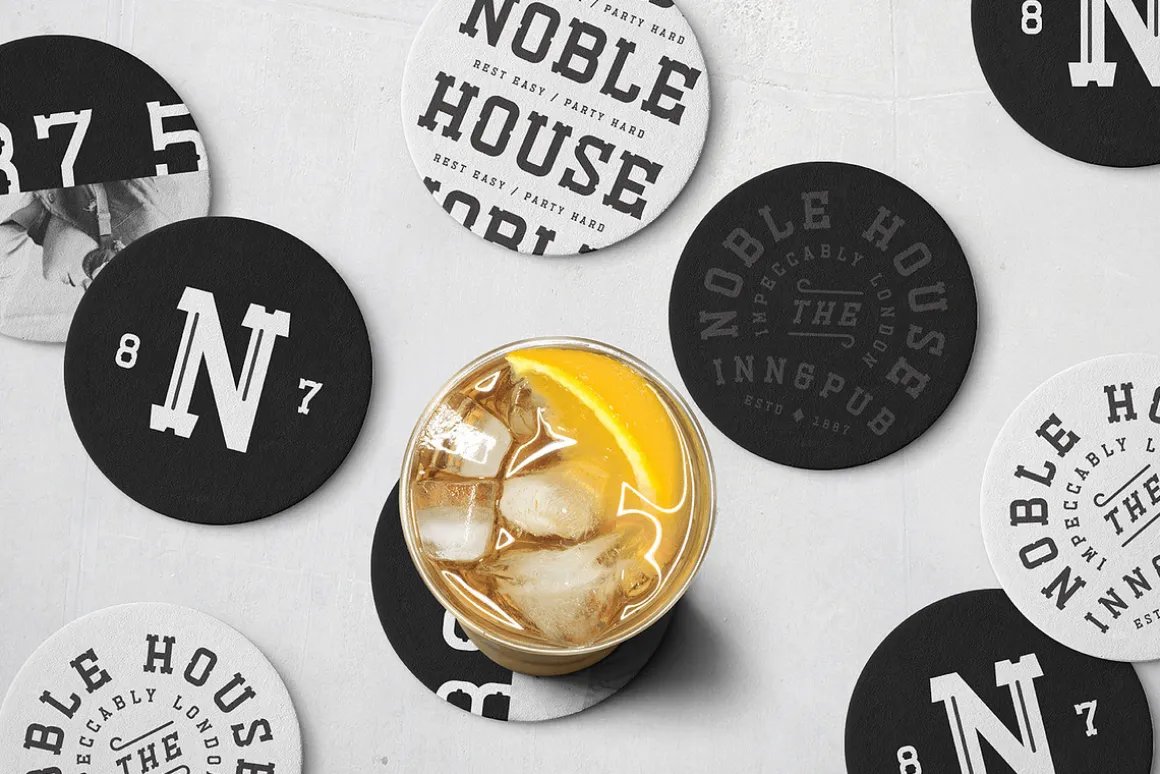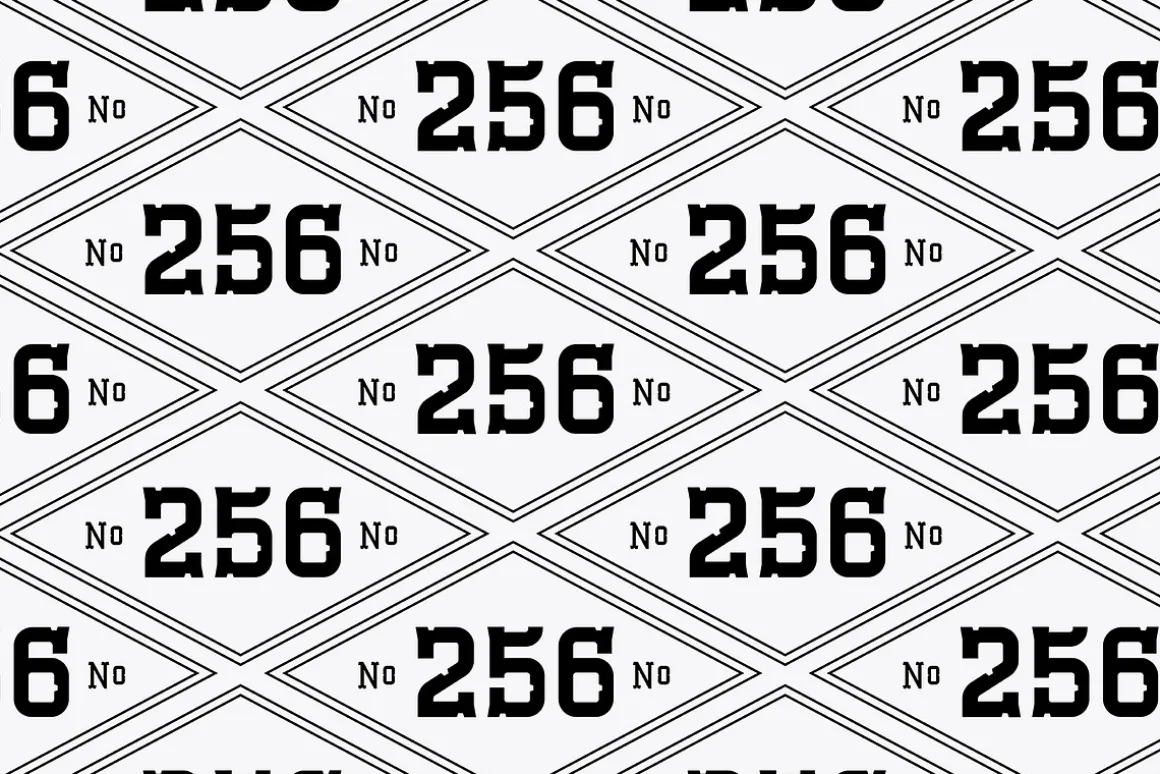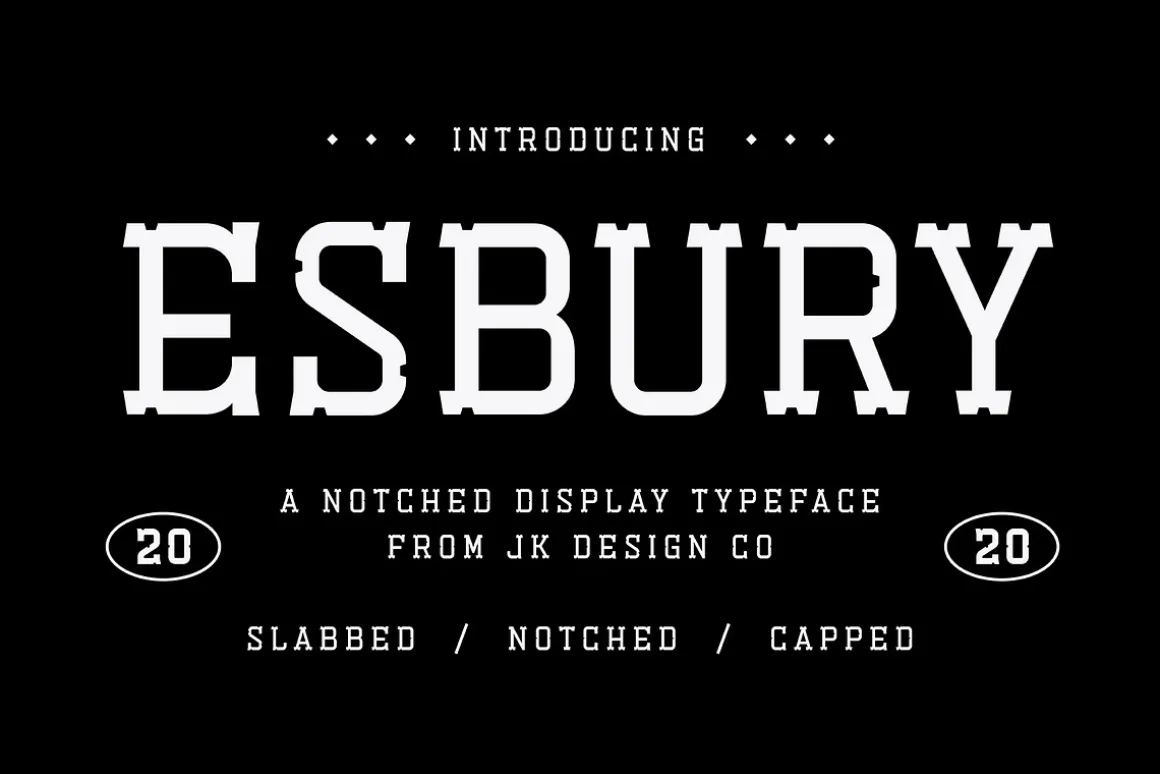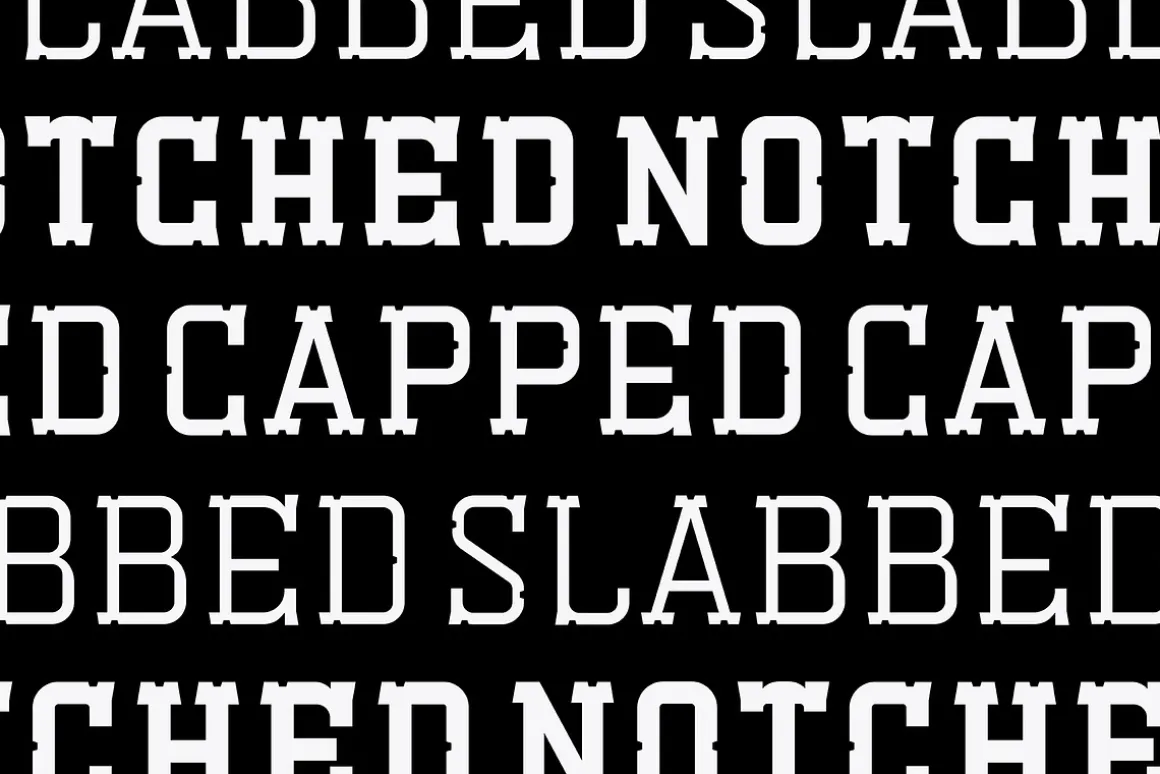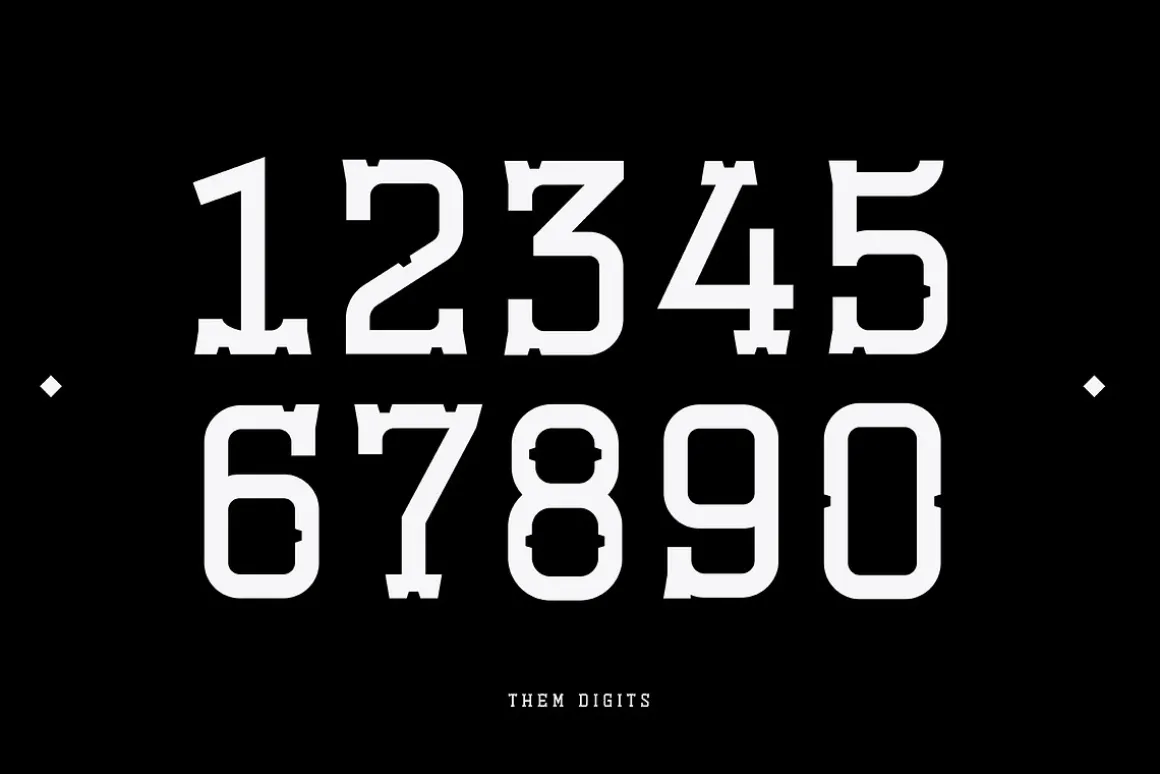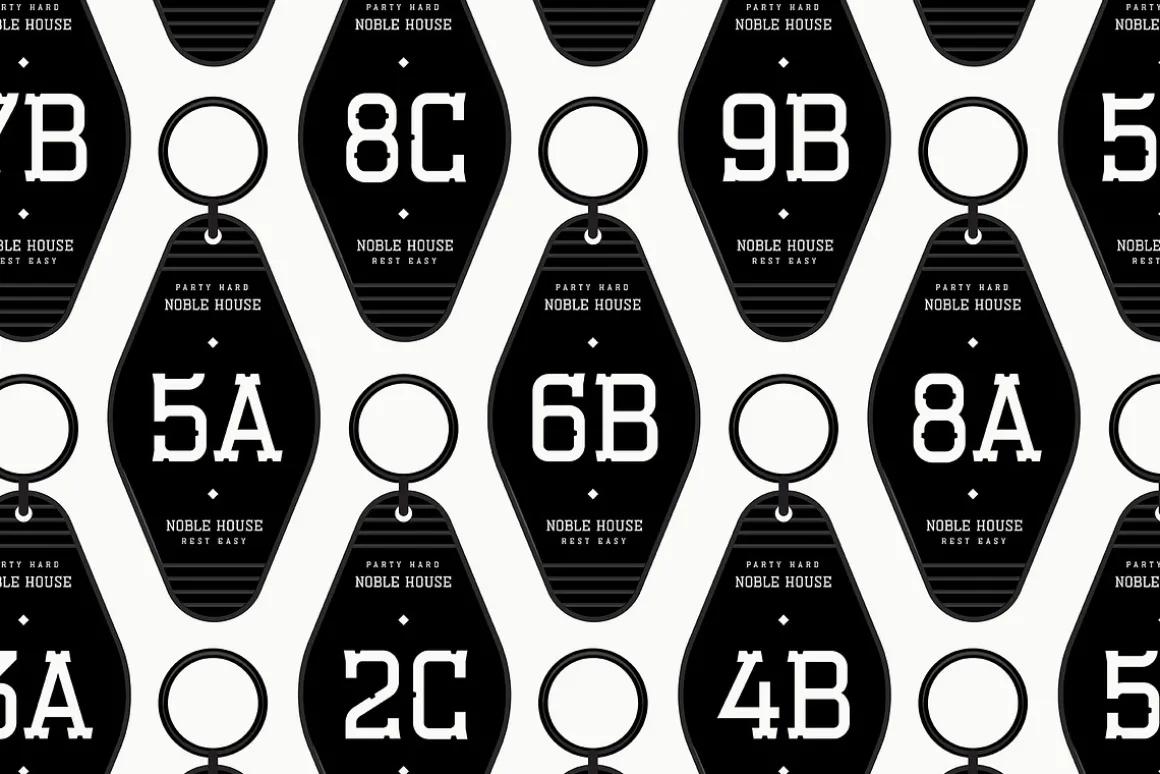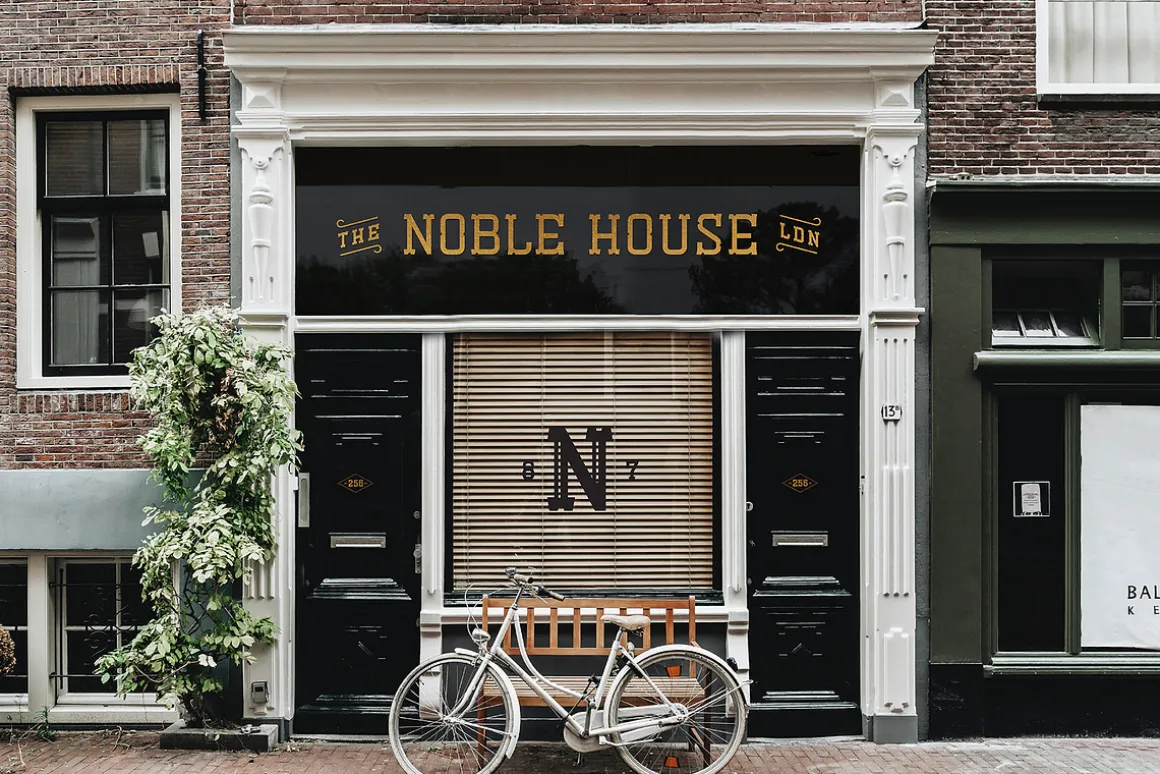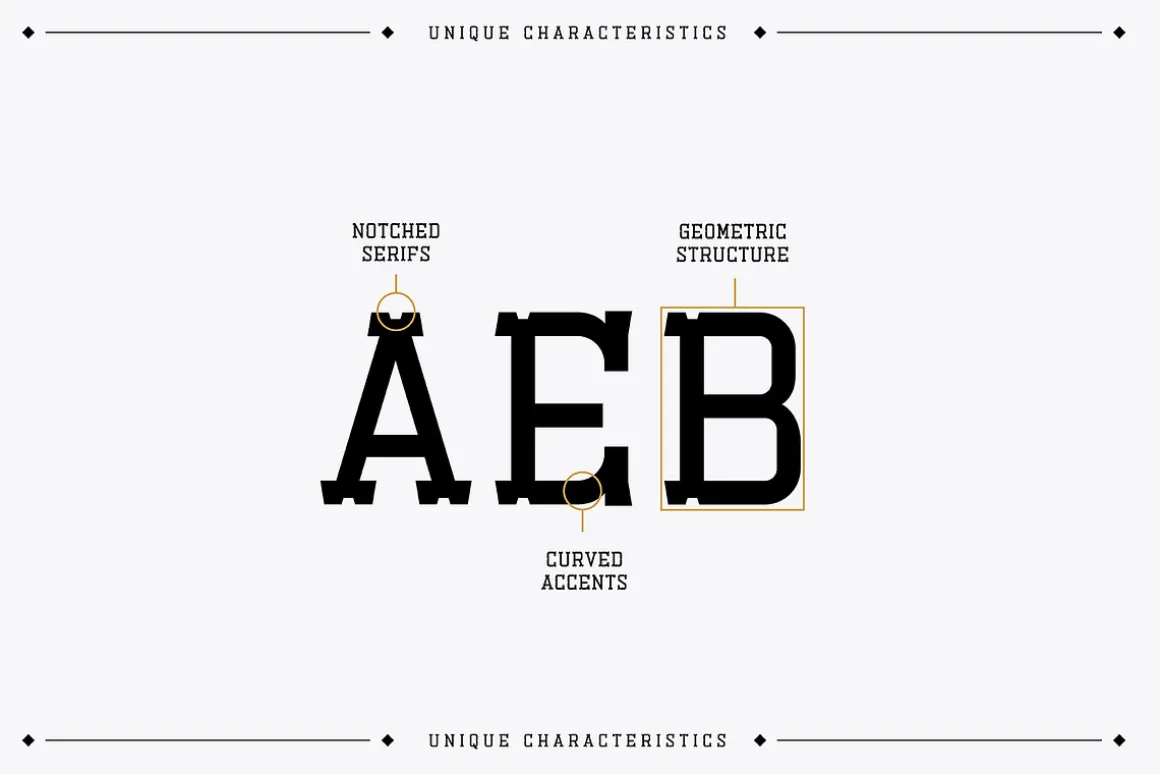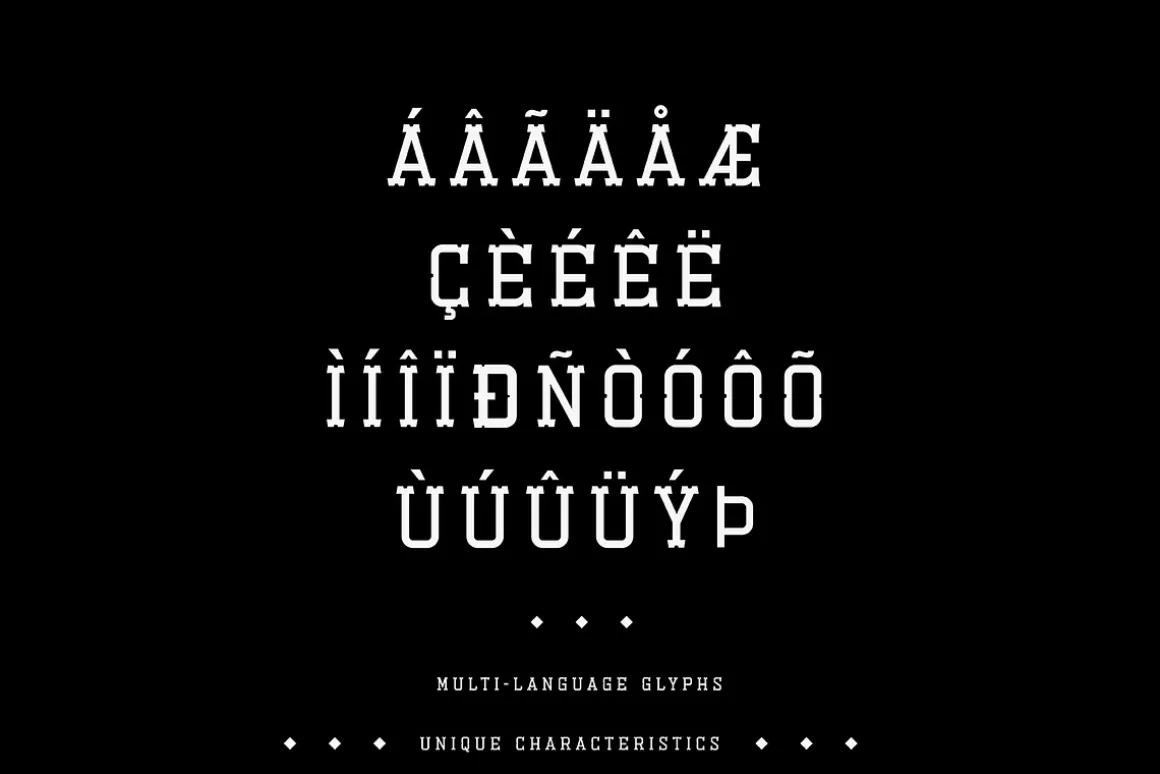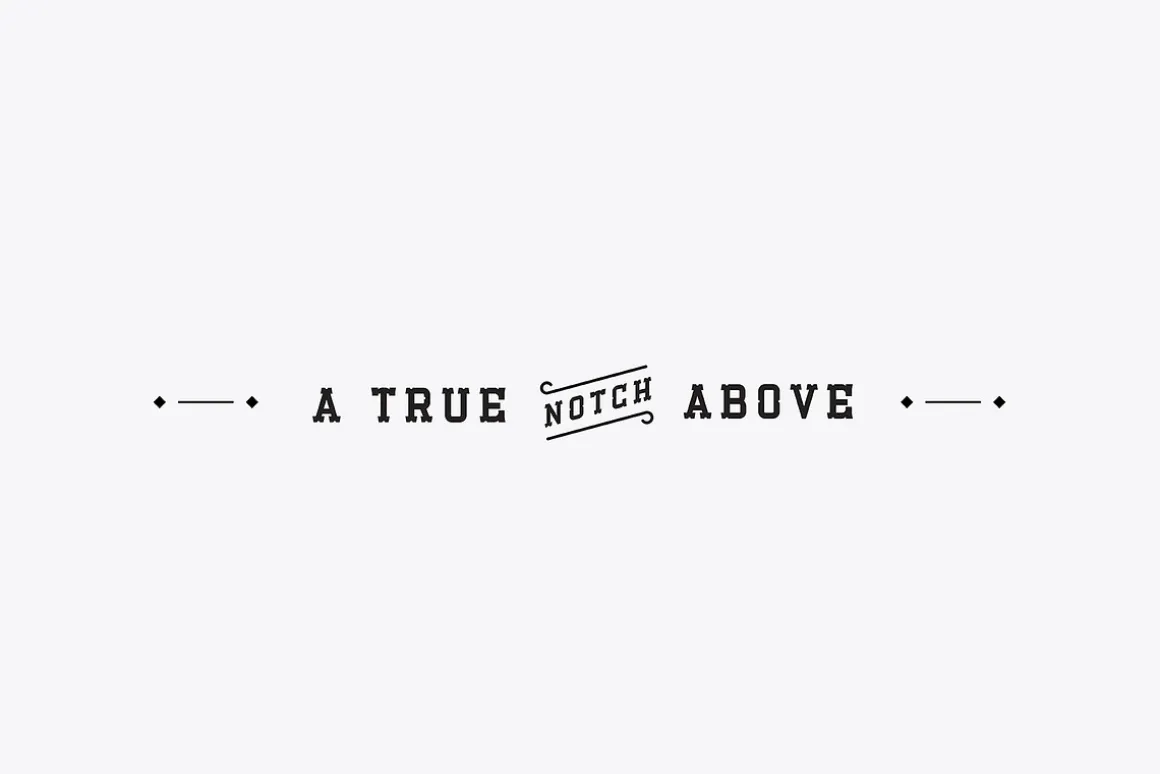
Esbury is a modern, notched display font inspired by gritty vintage tattoo typography and elegant European hotel signage. It’s a meshing of two seemingly different approaches to create an entirely new style.
The vintage tattoo influence comes across in a few ways. The notches in each letterform are derivative of the cross hatches typically seen in old-school sailor tattoos. Instead of the cross hatches protruding, they are notched out of each character, creating negative space. Deliberately placed curves are also injected into specific characters, like the “E”, to mimic the curled serifs you typically see in tattoo typography.
The European influence simply comes across through sophistication and balance. Each letterform is designed around the same geometric shape to create unity. And slab serifs add a traditional flair to help offset the modern silhouette of the characters.
Diacritics & Umlauts
Multi-language support through glyphs common in latin script characters (English, French, Spanish, German, Swedish, Norwegian, Danish)